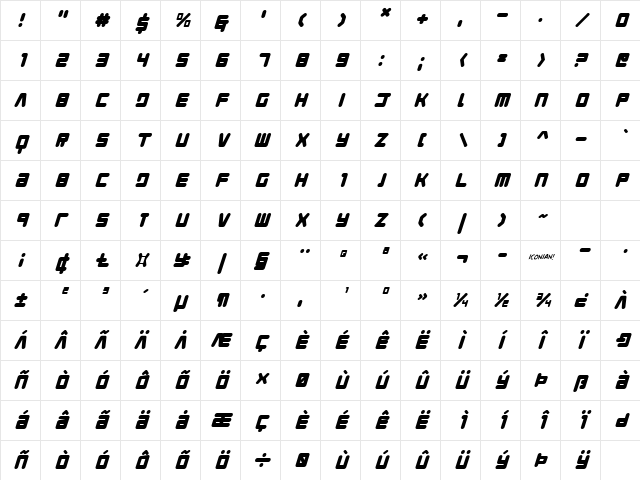
Young Techs Italic Italic
Design Context for Young Techs Italic
Young Techs Italic has a distinctly futuristic character, with geometric precision and clean angles that feel at home in technology, gaming, and sci-fi contexts. The slanted form adds forward momentum and visual energy.